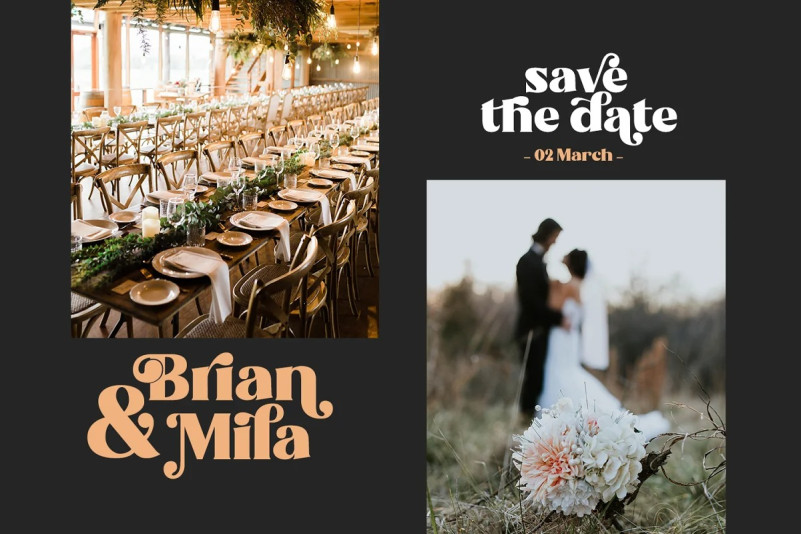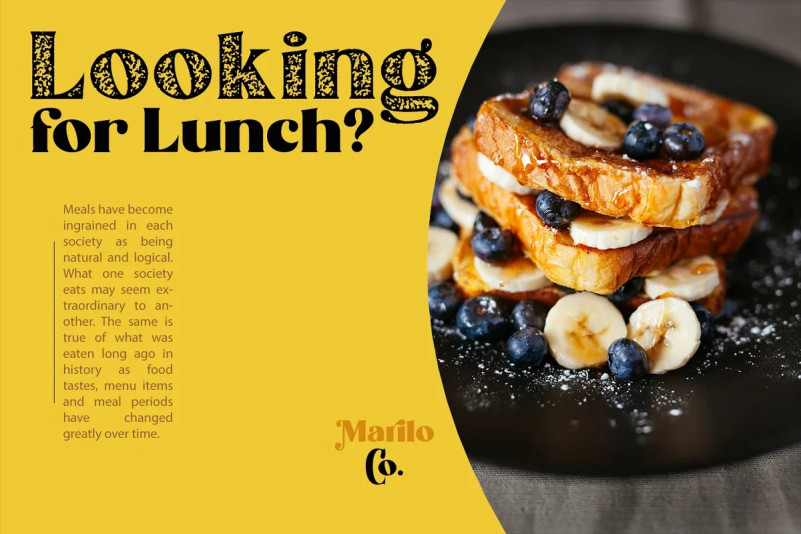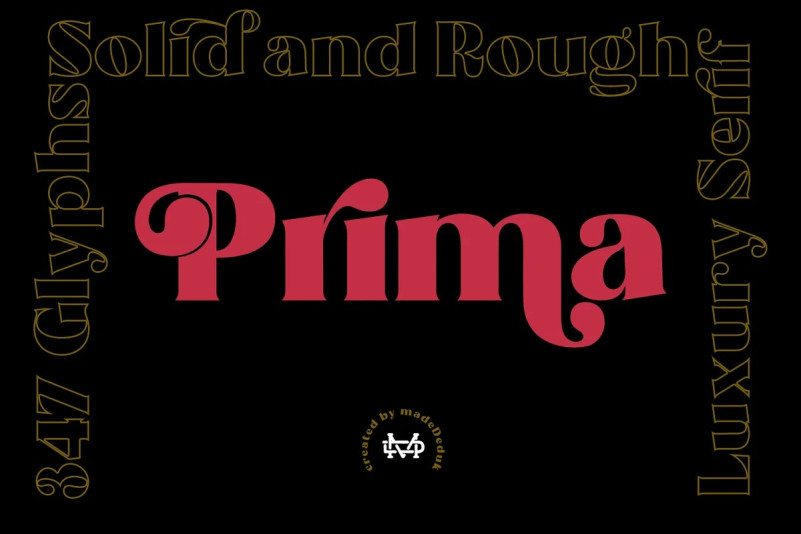
Prima Font
Prima Font is a luxury Typeface with contains ligatures and alternates each characters and comes with solid and rough version! A lot of stylish alternates characters will makes this font suitable for your any project design.